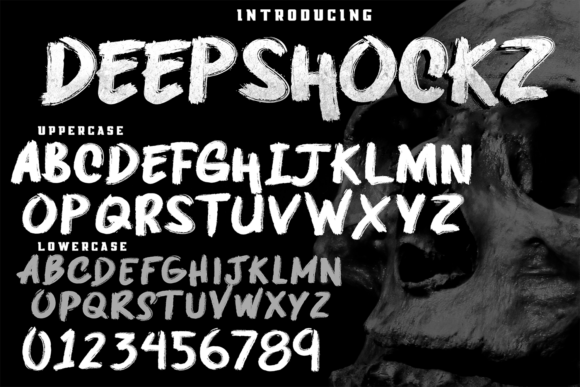
Unleash Your Creativity with Deepshockz Font: The Ultimate High-Energy Brush Typeface
Are you tired of using the same old fonts for your designs? Do you want to add a touch of edginess and expressiveness to your branding, posters, titles, and street-style designs? Look no further than Deepshockz Font, a high-energy brush typeface that’s sure to take your creative projects to the next level.
What is Deepshockz Font?
Deepshockz is a rugged and dynamic brush typeface that’s perfect for designers and crafters who want to add a bold and daring touch to their work. Its hand-drawn texture gives your message power and movement, making it ideal for a wide range of applications, from edgy branding and grunge posters to horror titles and street-style designs.
Key Features of Deepshockz Font
- High-energy brush typeface: Deepshockz Font is designed to pack a punch, with rugged edges and expressive strokes that give your text a dynamic and energetic feel.
- Uppercase and lowercase letters: This font comes with both uppercase and lowercase letters, making it perfect for a wide range of design applications.
- Hand-drawn texture: The hand-drawn texture of Deepshockz Font gives your message a unique and authentic feel that’s perfect for adding a touch of personality to your designs.
- Perfect for edgy designs: Whether you’re working on a branding project, a grunge poster, a horror title, or a street-style design, Deepshockz Font is the perfect choice.
Why Choose Deepshockz Font?
So why choose Deepshockz Font over other typefaces? Here are just a few reasons:
- Unique and expressive: Deepshockz Font is a one-of-a-kind typeface that’s sure to make your designs stand out from the crowd.
- Versatile: This font is perfect for a wide range of design applications, from print to digital.
- High-quality: This font is designed to deliver high-quality results, with crisp and clear lines that look great in any size.
How to Use Deepshockz Font
Using Deepshockz Font is easy. Here are just a few tips to get you started:
- Pair it with a bold color: Deepshockz Font looks great in bold colors, so don’t be afraid to experiment with different hues and shades.
- Use it for headlines: This font is perfect for headlines and titles, where its high-energy feel can really make an impact.
- Experiment with different sizes: Deepshockz Font looks great in a variety of sizes, from small and subtle to large and bold.
- Combine it with other fonts: Don’t be afraid to combine Deepshockz Font with other fonts to create a unique and eye-catching design.